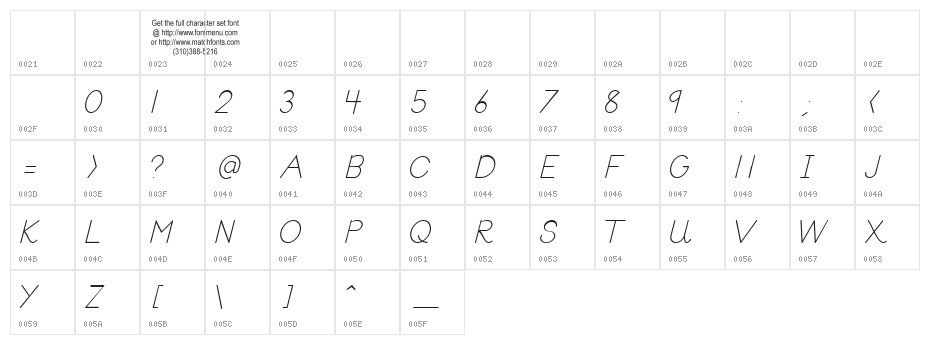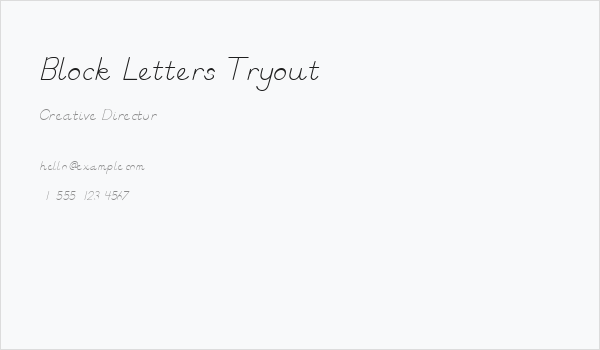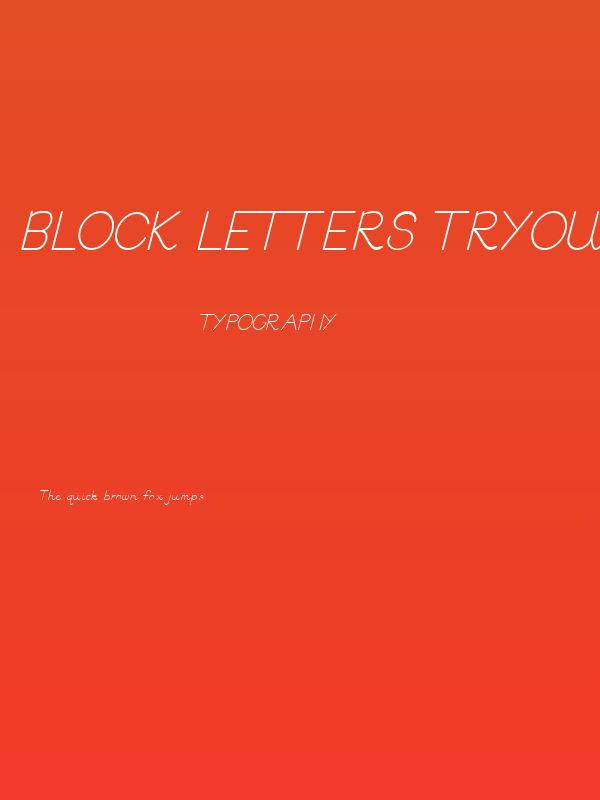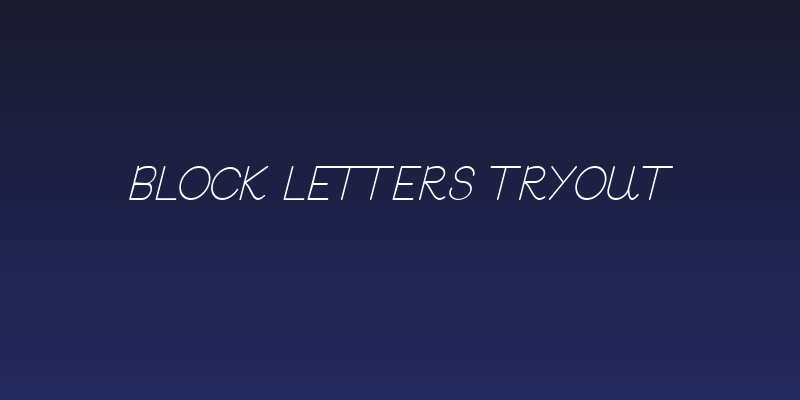
Block Letters Tryout Font
Block Letters Tryout Description
This font features a clean, elegant script style with a slight slant, giving it a handwritten appearance. The characters are well-formed with consistent stroke widths, providing a smooth and flowing look. Uppercase letters maintain a uniform height, while lowercase letters exhibit a gentle curve, enhancing readability. The numerals are clear and distinct, matching the overall style of the alphabet. This font is versatile, suitable for both formal and casual applications, and its simplicity makes it easy to read at various sizes.
| Use Case | Invitations, Greeting cards, Personal branding |
| Proposed Projects | Ideal for invitations, greeting cards, personal branding, and elegant signage. |